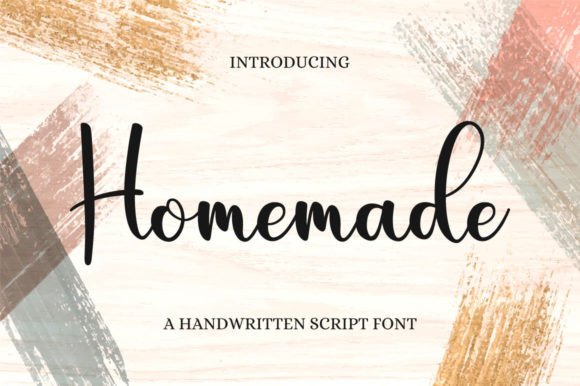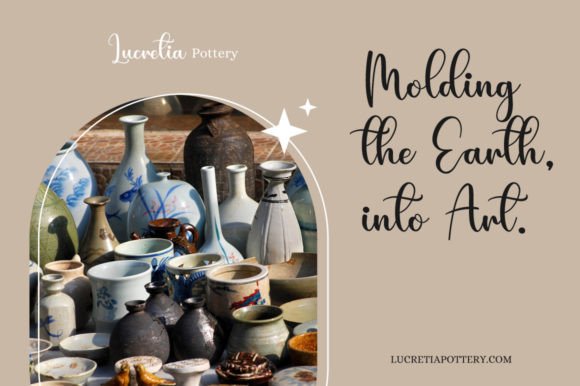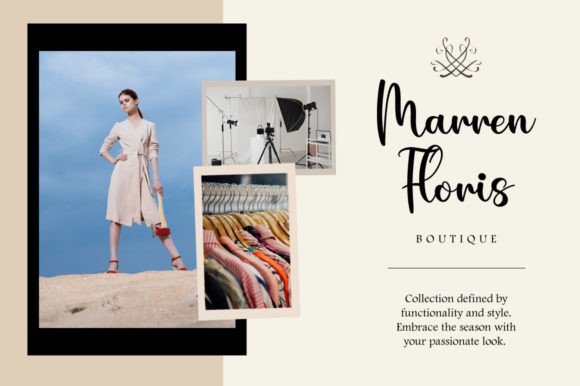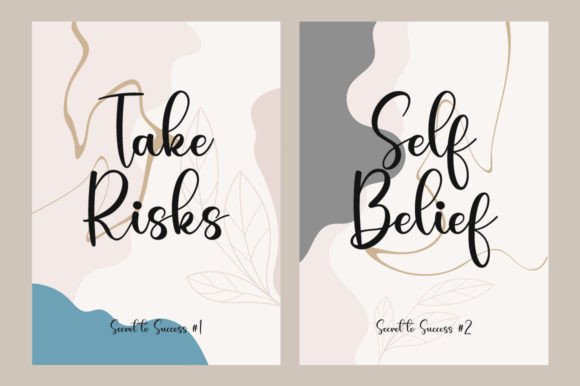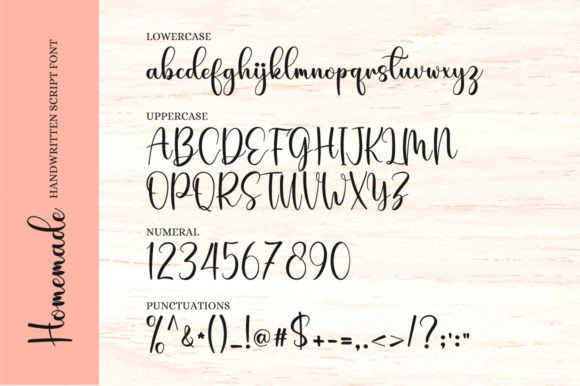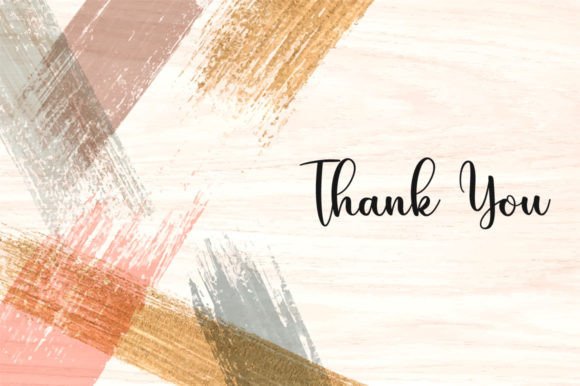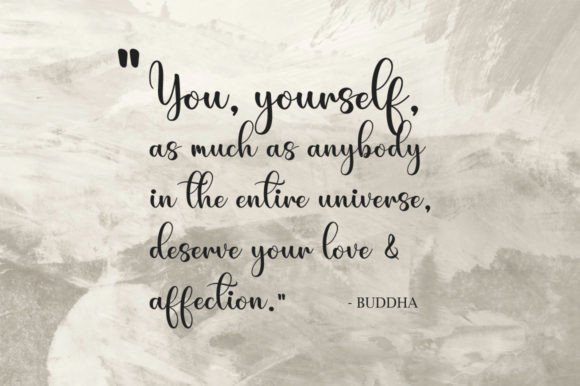
Homemade Font
About Homemade Font
**Homemade**: *Where Timeless Charm Meets Handwritten Elegance*
Homemade isn’t just a font; it’s a delightful fusion of timeless charm and handwritten elegance, thoughtfully designed to craft eye-catching logos, branding, and memorable quotes. With its graceful and inviting characters, this handwritten font effortlessly adds a touch of sophistication to your creative projects.
What distinguishes Homemade is its remarkable ability to seamlessly blend timeless allure with the artistry of handwritten elegance. The font’s exquisitely crafted characters exude an air of grace and authenticity, making it the ultimate choice for projects that aim to leave a lasting impression through logos, branding, and quotes. Homemade is the font that can effortlessly elevate your designs, leaving a memorable and timeless mark.
Homemade strikes the perfect balance between timeless style and handwritten charm, making it a versatile and sophisticated choice for projects that demand elegance and authenticity.
In branding and logos, Homemade adds a unique sense of character and sophistication, giving your brand a distinctive and memorable signature. It possesses the power to convey a brand’s values and identity, resonating effectively with its target audience.
For quotes and memorable phrases, the font’s graceful characters enhance the impact of your words, making them more captivating and unforgettable. Whether you’re working on print materials, social media graphics, or any other visual content, Homemade brings an air of elegance and authenticity to your messages.
One of Homemade’s most remarkable qualities is its adaptability. It can transition seamlessly from a formal and polished tone to a more relaxed and friendly one, making it suitable for a wide range of creative applications. Its ability to evoke timeless beauty ensures that it remains a cherished choice for designers and creators across diverse industries.
In summary, Homemade is more than just a font; it’s a design asset that masterfully combines timeless charm with handwritten elegance. Its unique blend of graceful characters and classic charm positions it as an indispensable tool for anyone seeking to infuse sophistication and authenticity into their visual communication. Embrace the timeless charm of Homemade, and watch your designs come alive with grace and enduring appeal.